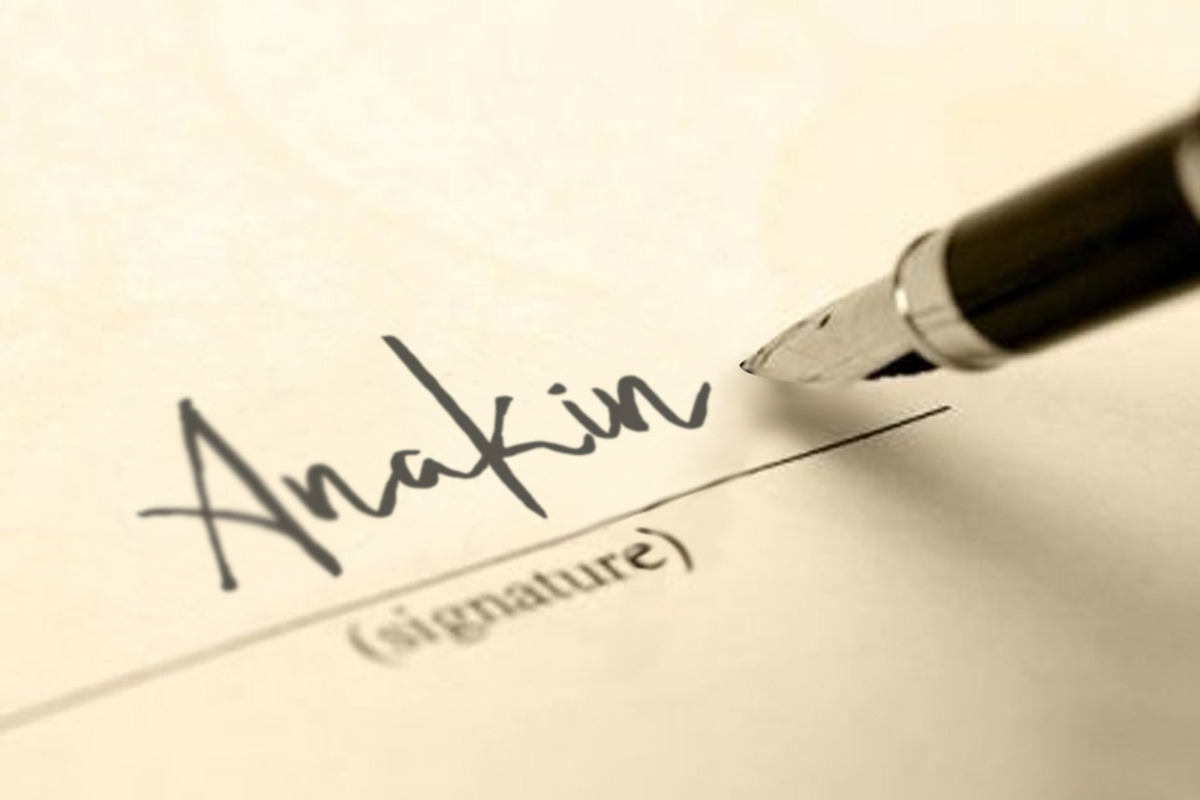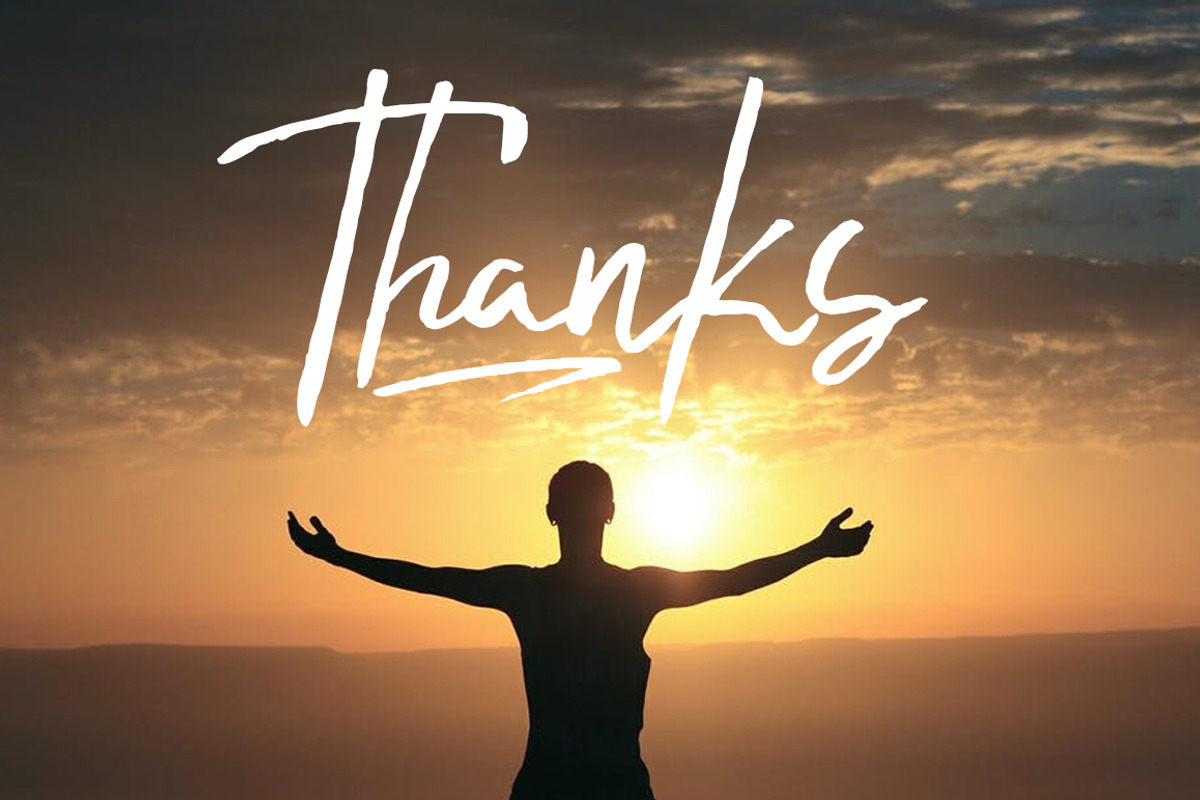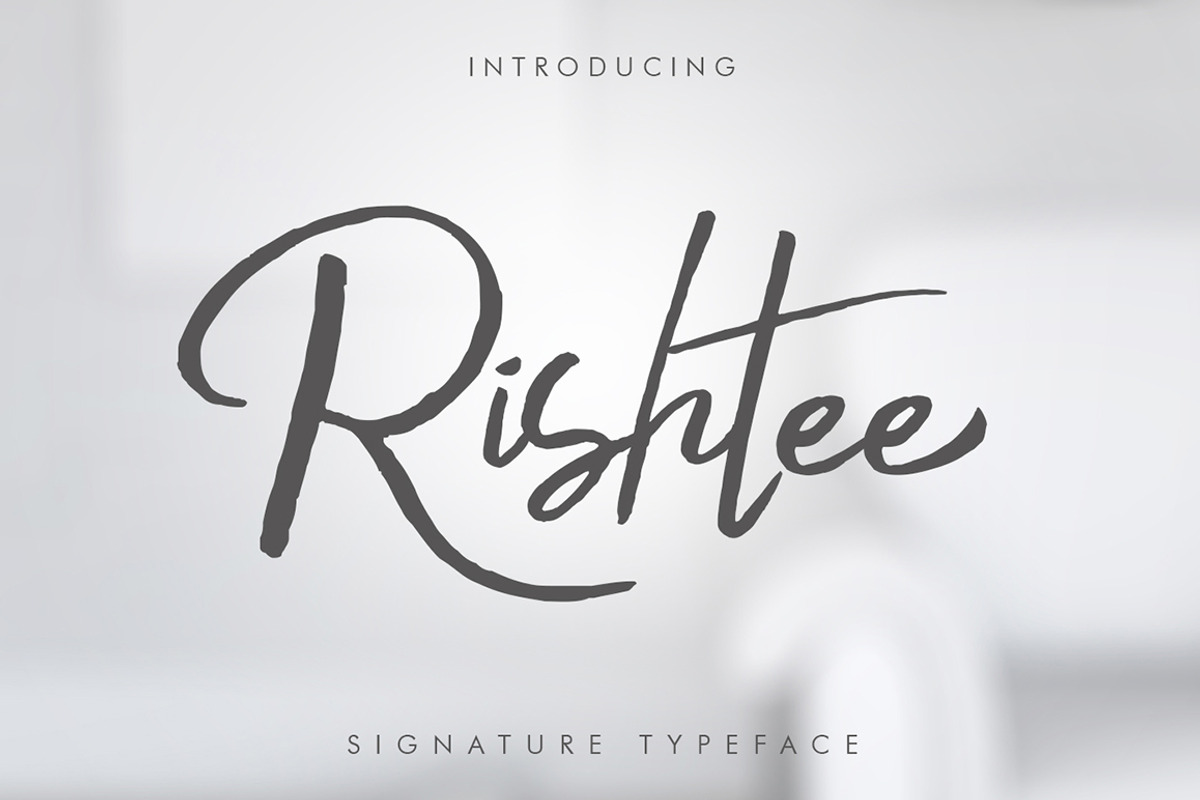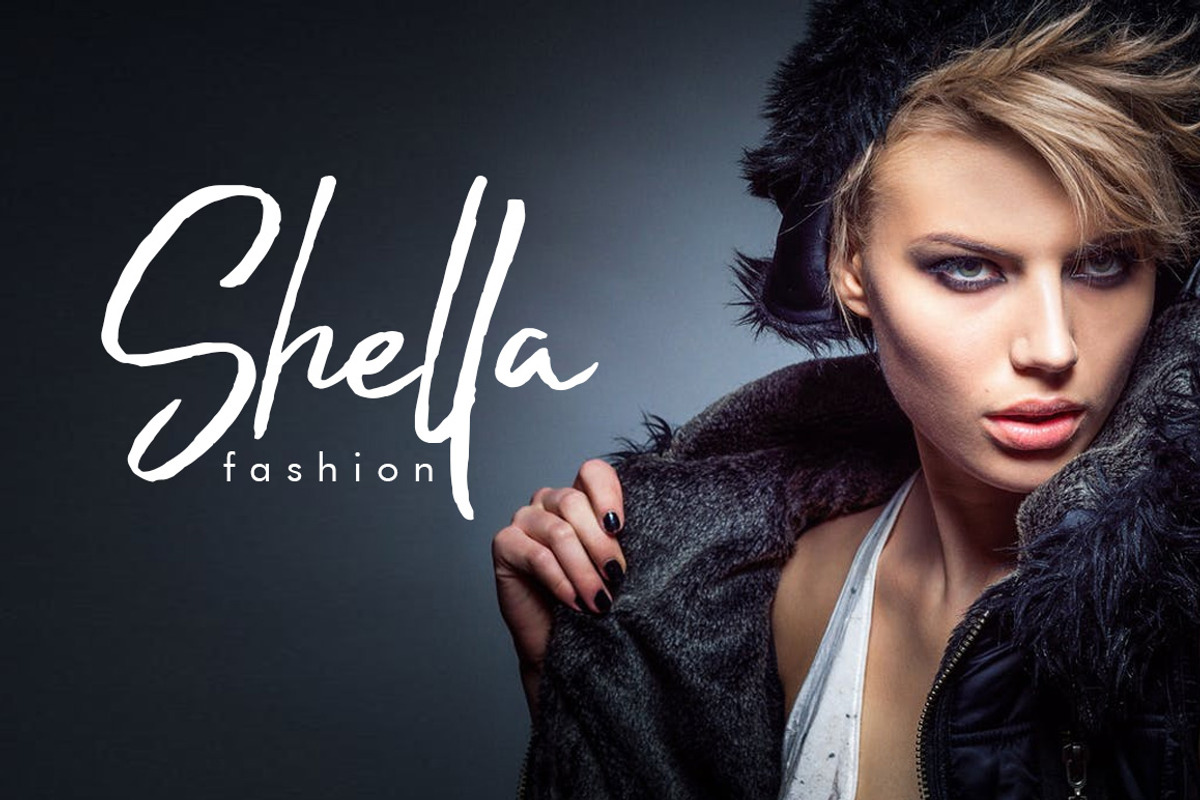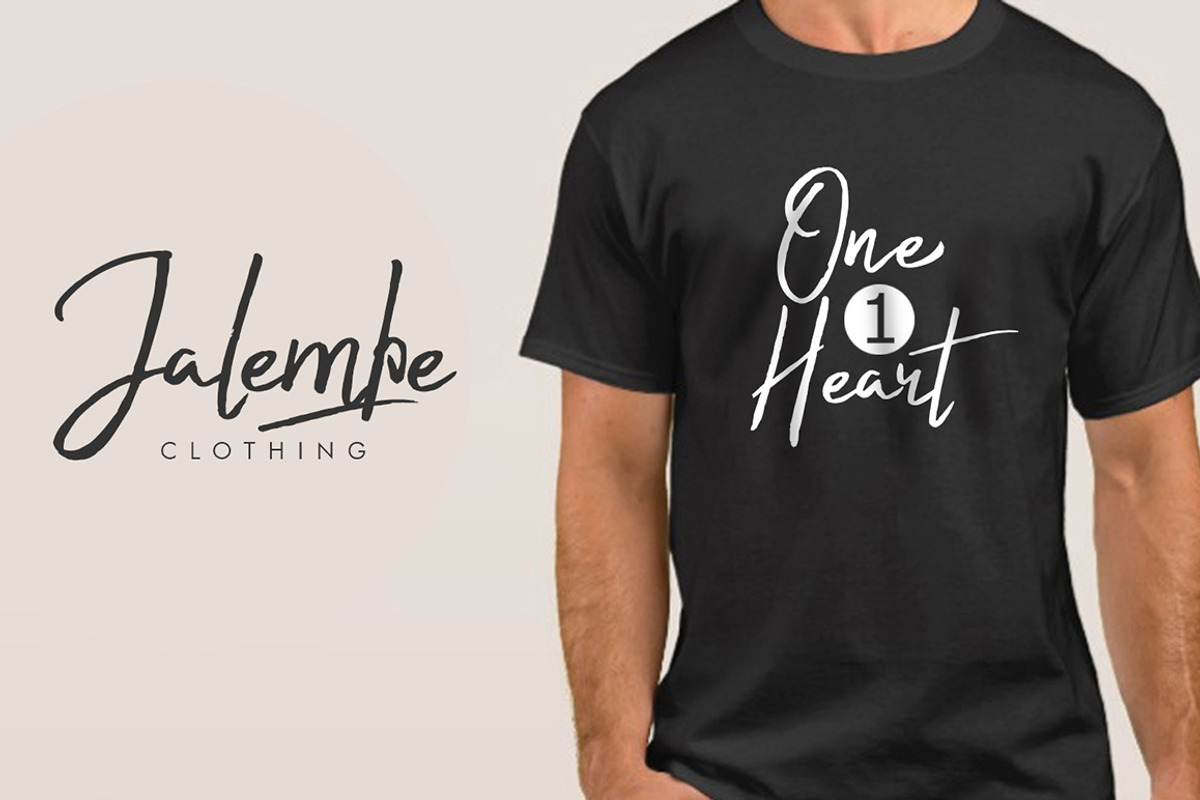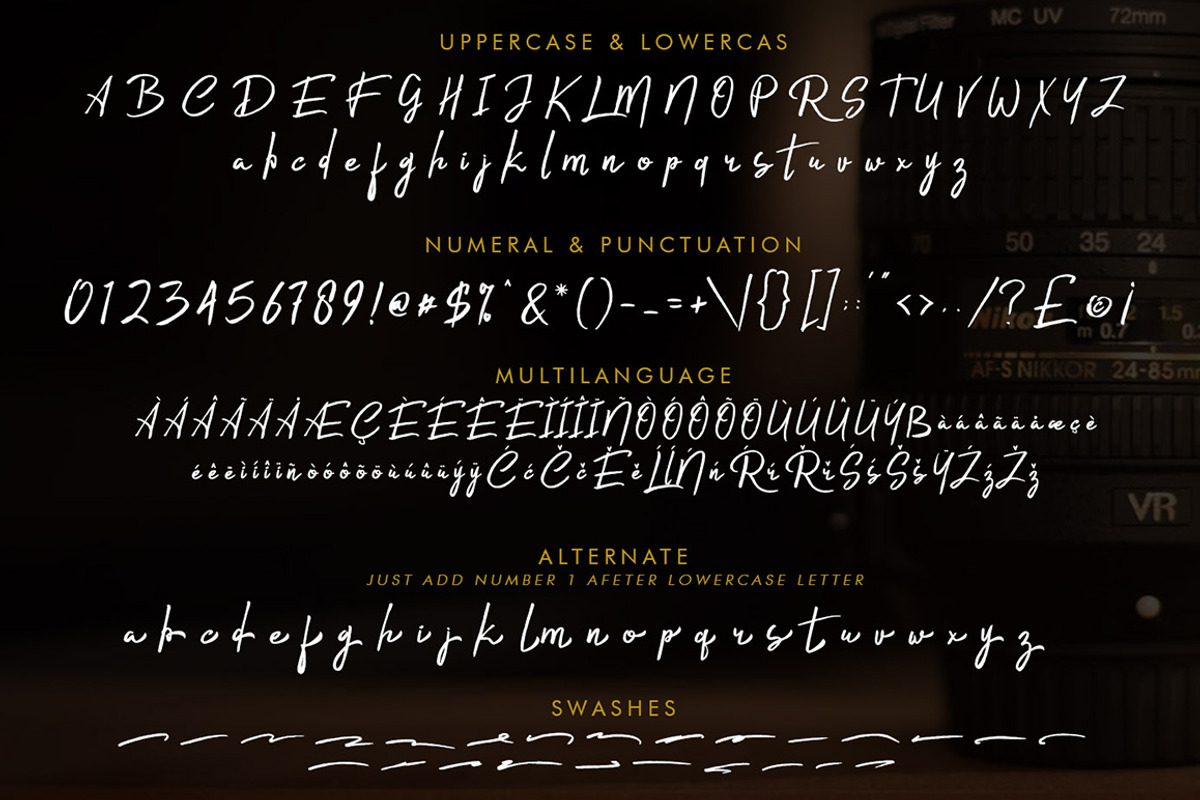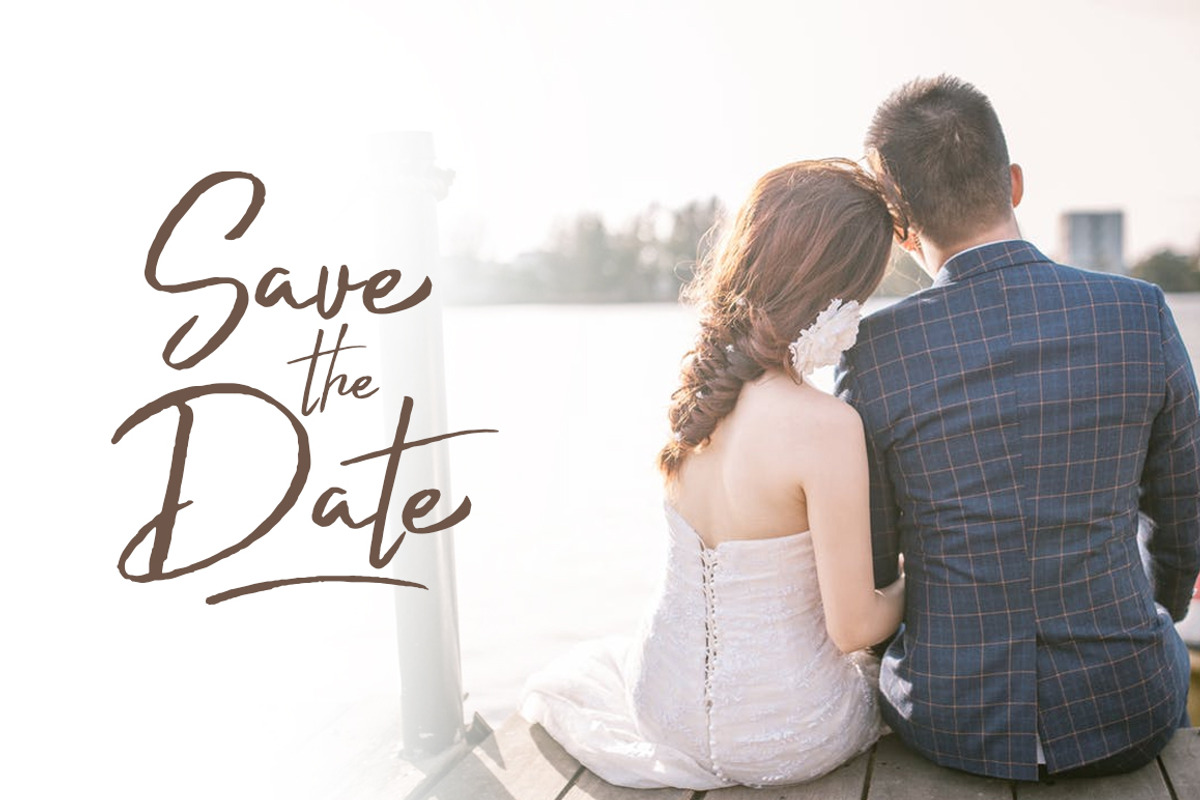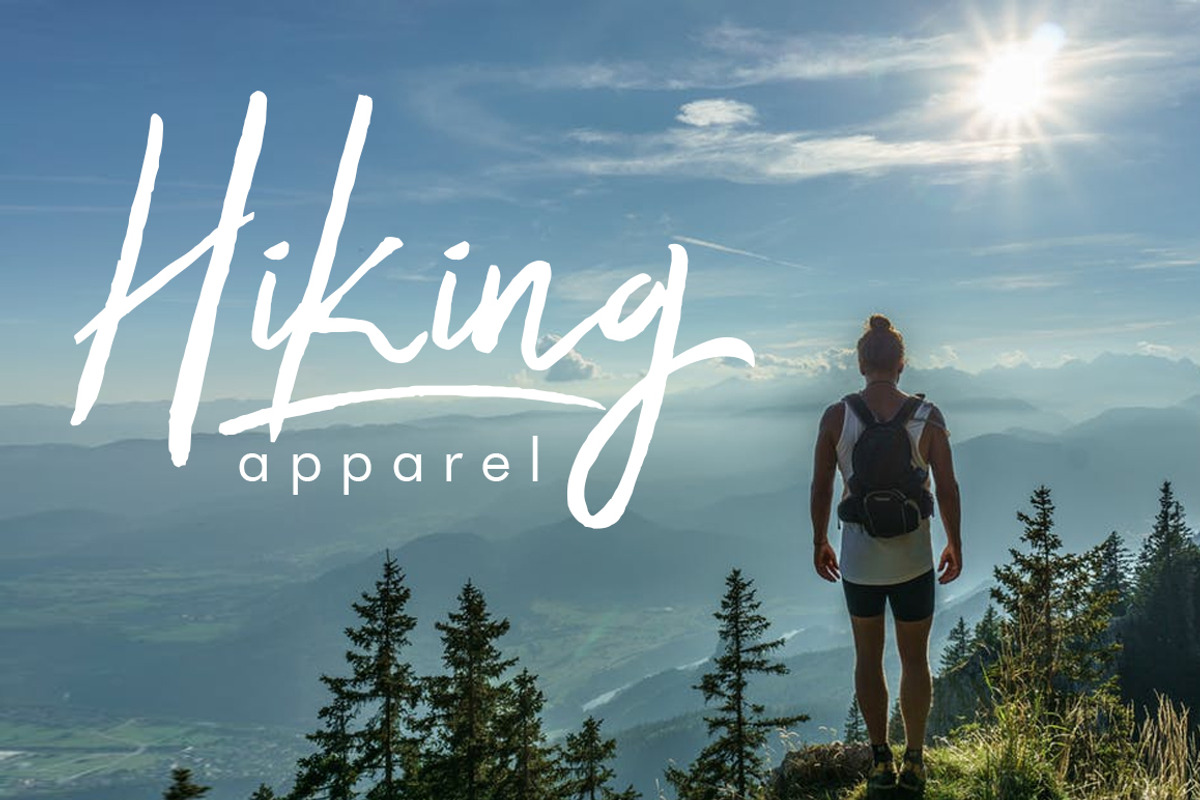
Rishtee Signature Font
Introducing Rishtee Signature Typeface - a font that is very fresh and unique style handmade. Rishtee Signature Typeface is perfectly suited to logo, stationery, poster, apparel, branding, wedding invitation, card, tagline, layout design, and much more !!
You can access alternate with add number 1 after lowercase letter.
Why Rishtee Signature Font is worth a look
Rishtee Signature Font by khurasan fits naturally into Branding, posters, packaging, typography.